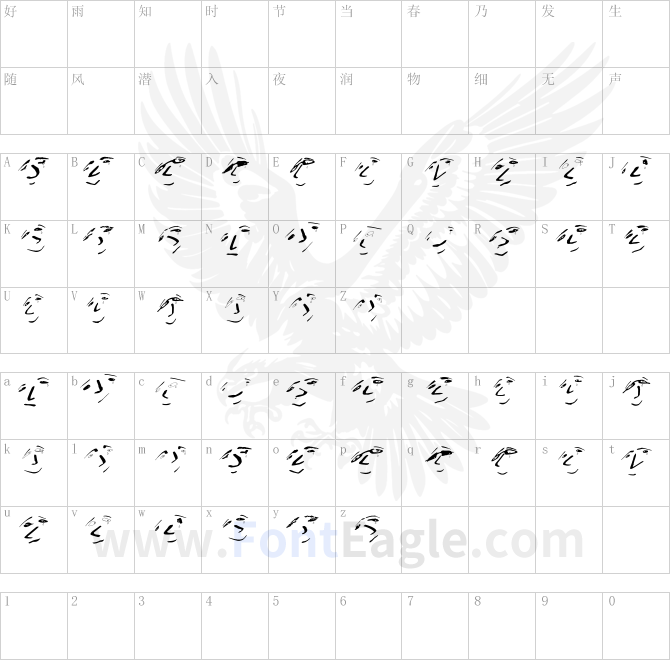
- Font name:EggheadsCrying
- Font Subfamily ID:EggheadsCrying
- Font Full Name:EggheadsCrying
- Font Version:1.0 2002-08-10
- Postscript:EggheadsCrying